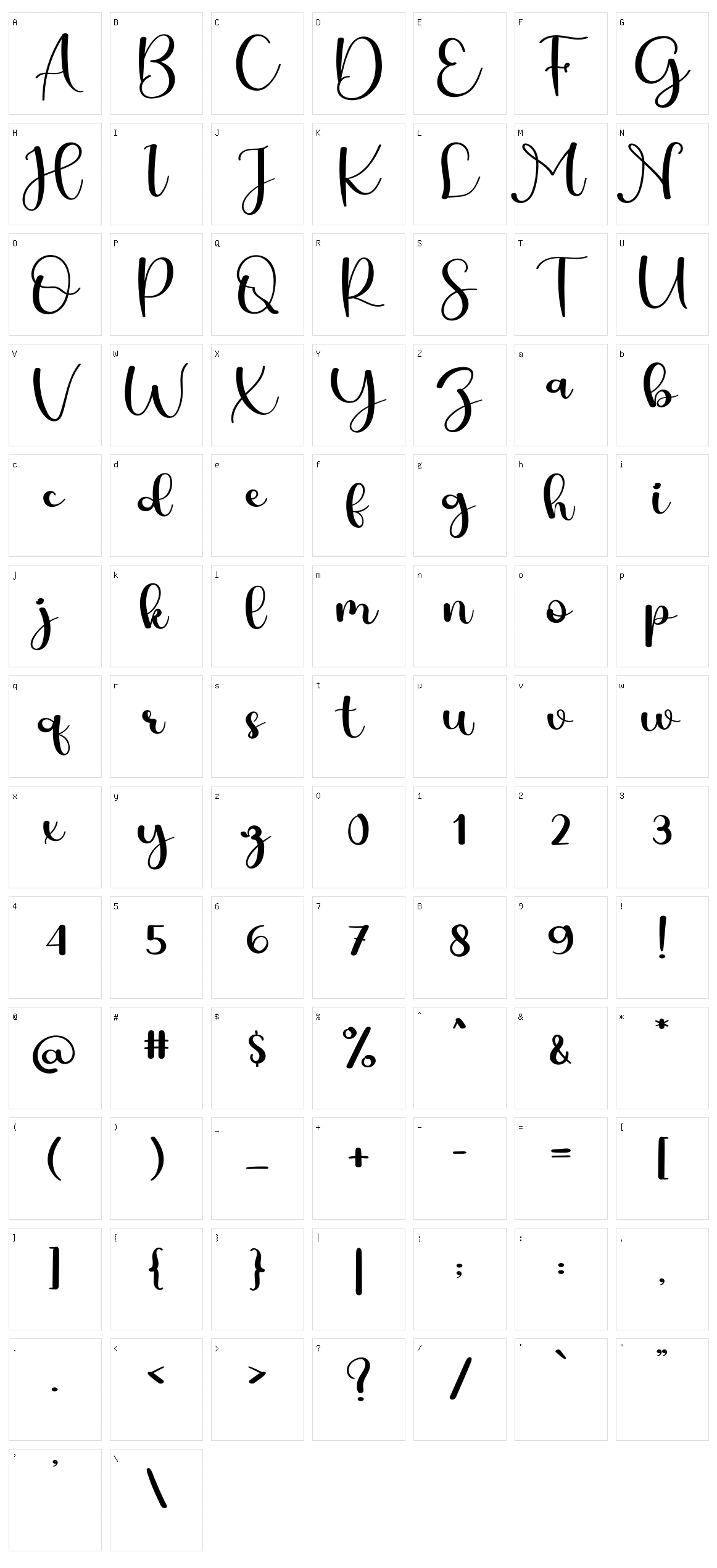
The free font Brilliant Soulmate is carefully designed by Fana Merah Jambu, showcasing a thoughtful balance of creativity and usability and falls under the Script font style. When you download the ZIP file, it contains only 75.4 KB of font files, making it lightweight and quick to download. Please review the license details below to understand permitted usage and distribution rights. If license information is not available, we recommend using this font for personal projects only or contacting the author directly for commercial usage permissions.